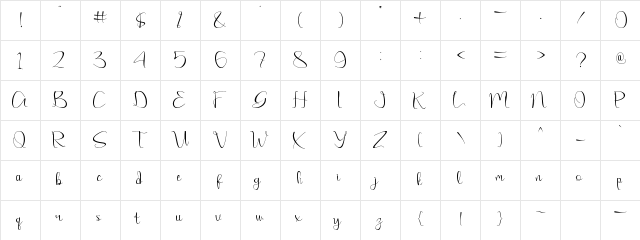
Amillea Regular
| Designer | Alif Ryan Zulfikar |
Design Context for Amillea Typeface
Amillea is a composed and adaptable typeface that performs quietly and consistently across a wide range of design contexts.